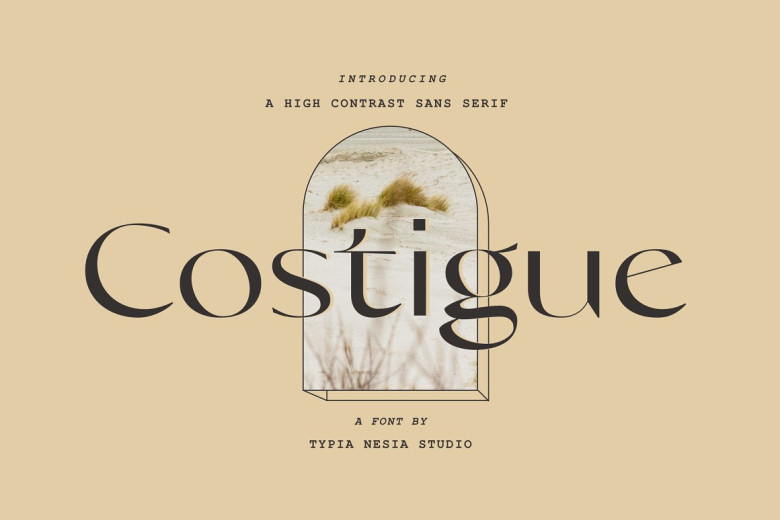
Costigue Font
Costigue Sans font is perfect for all of your future projects, such as luxury logo branding, editorial designs, stationery designs, elegant modern fashions, salon beauty advertisements, feminine advertisements, blog/website design, invitation cards, art quotes home decor titles/covers and much more.
Costigue Luxury Sans Serif Font